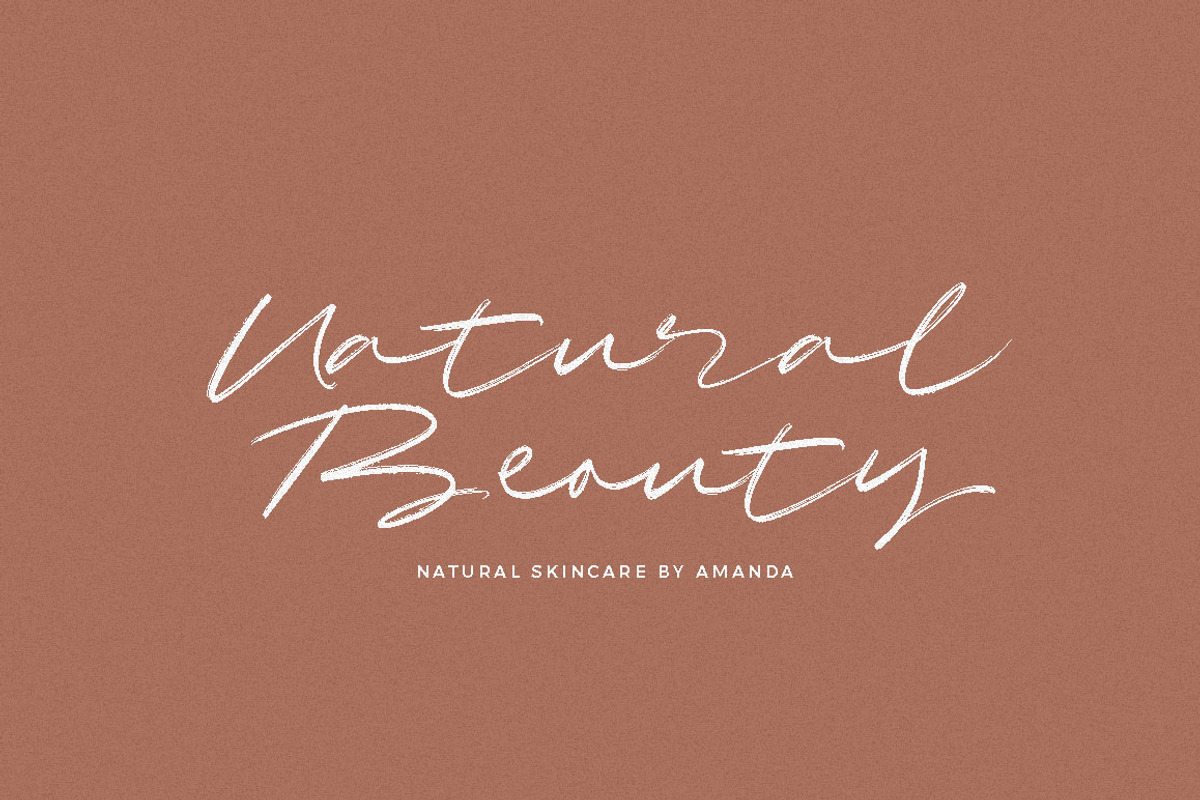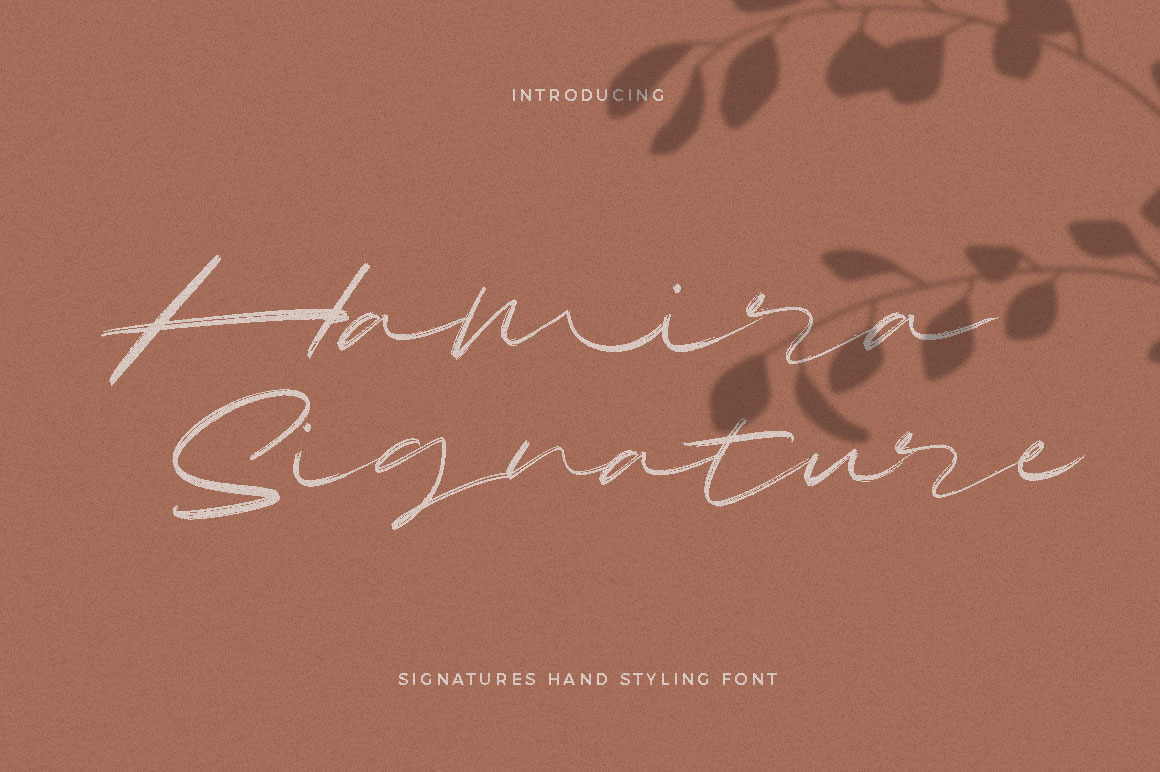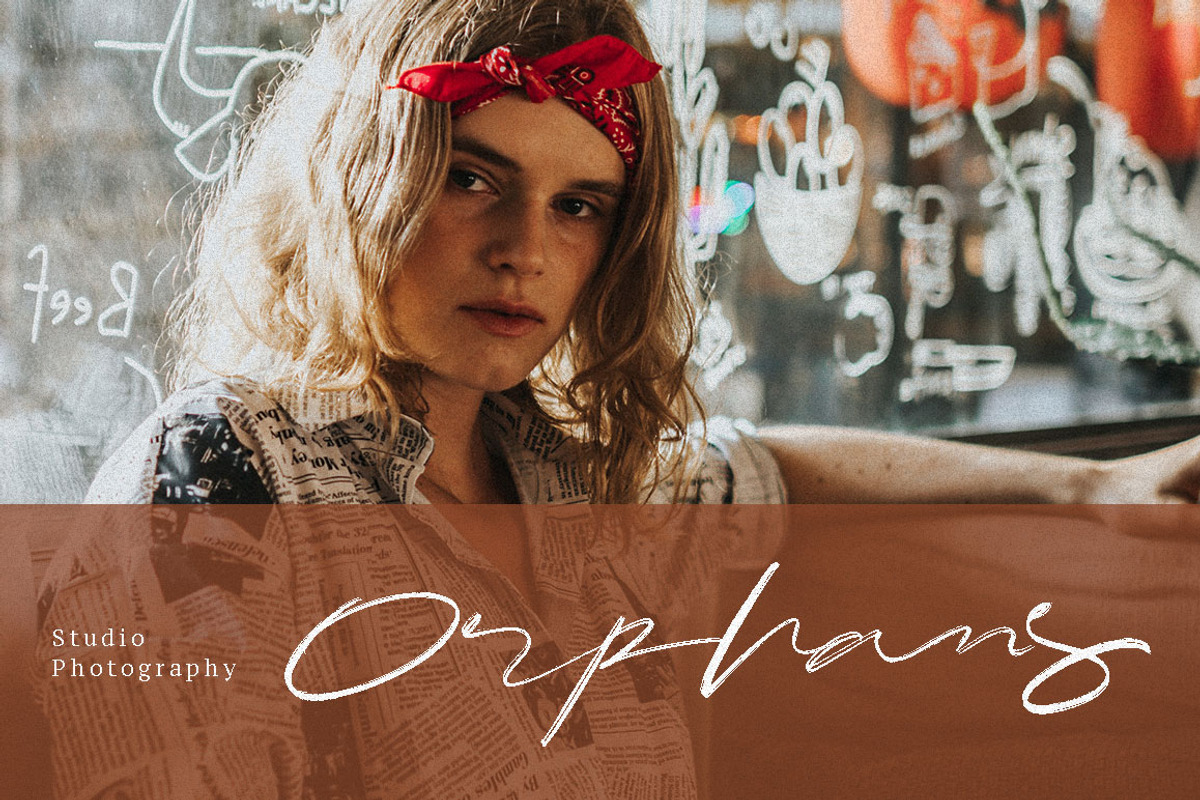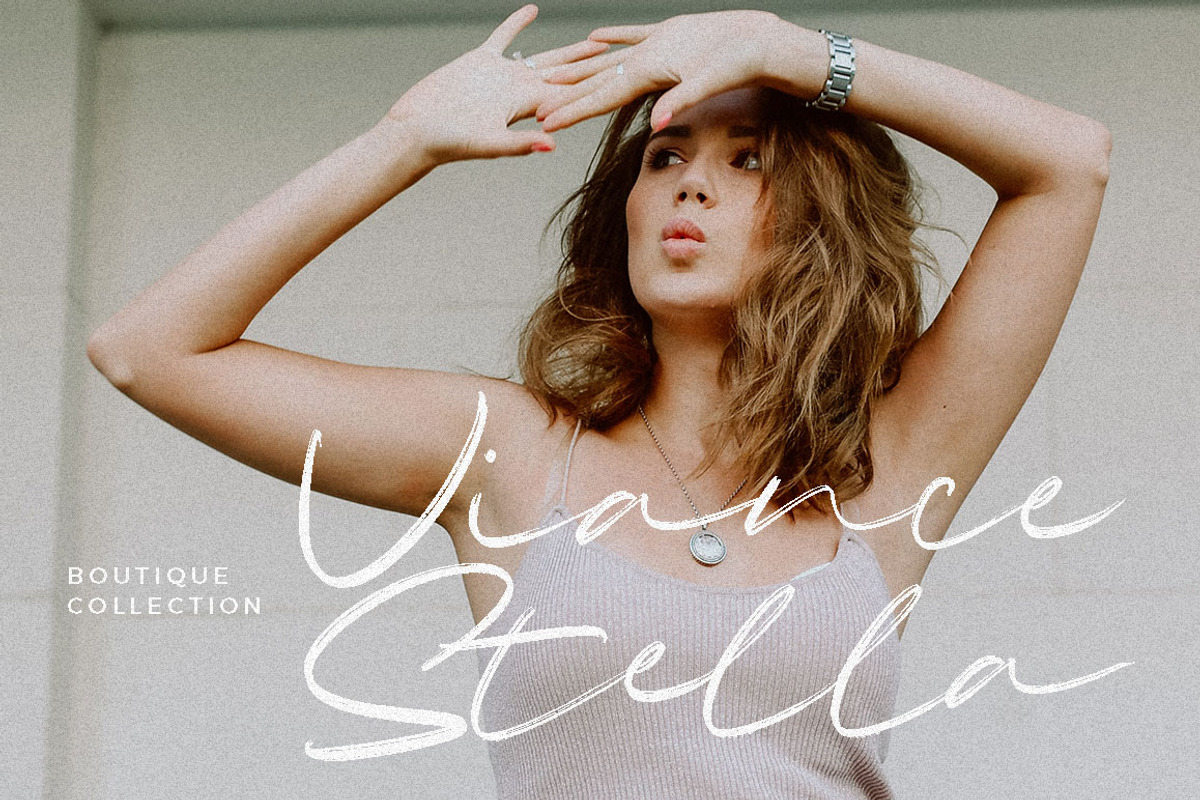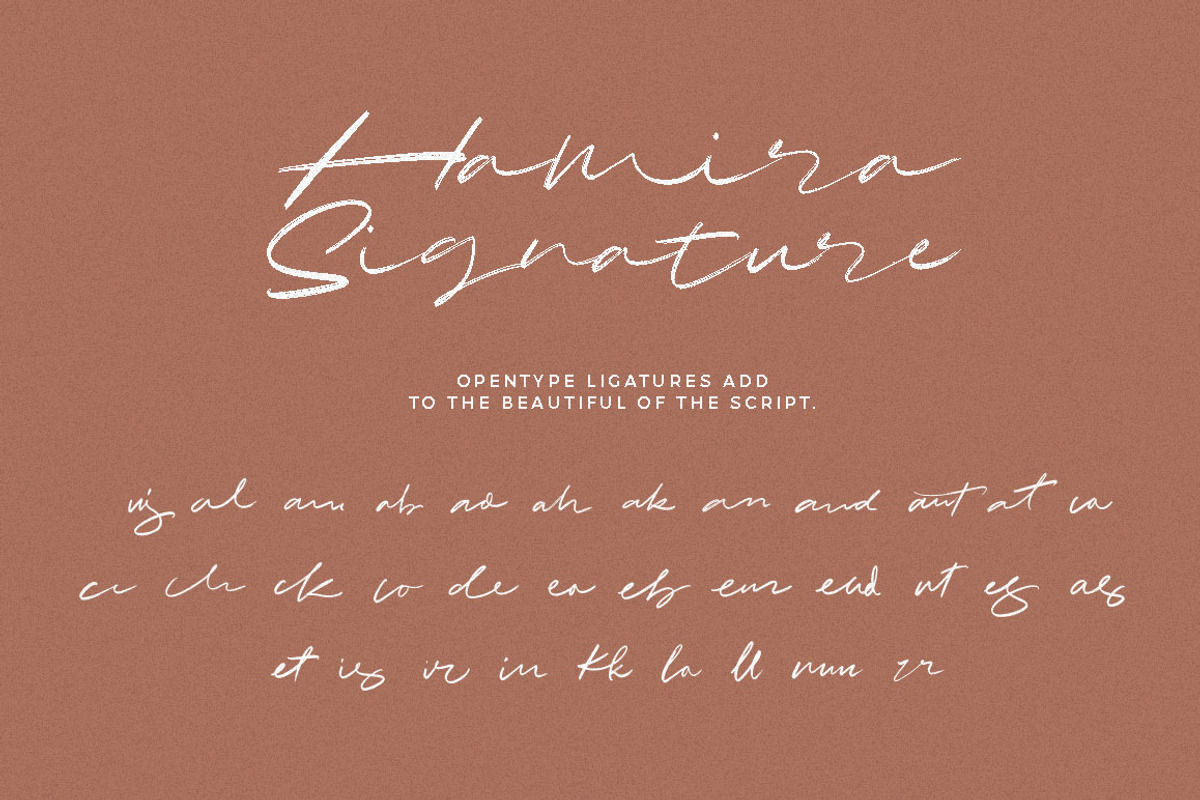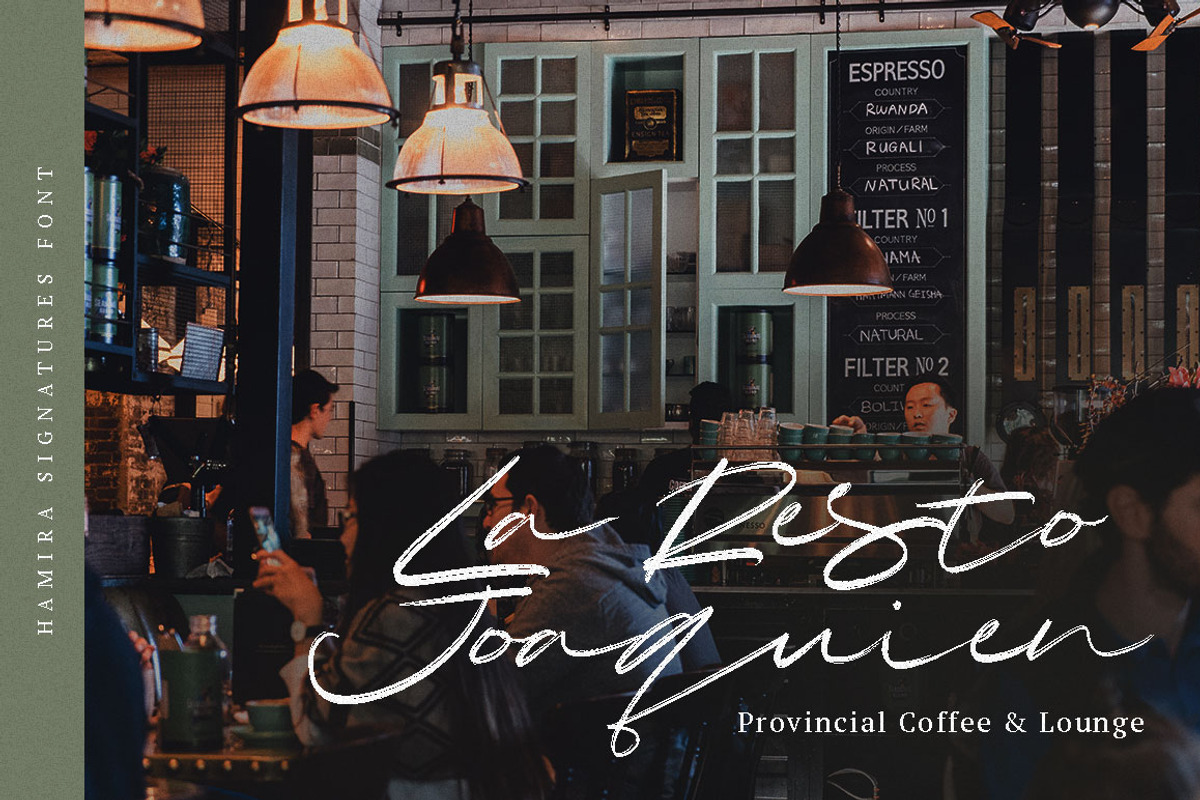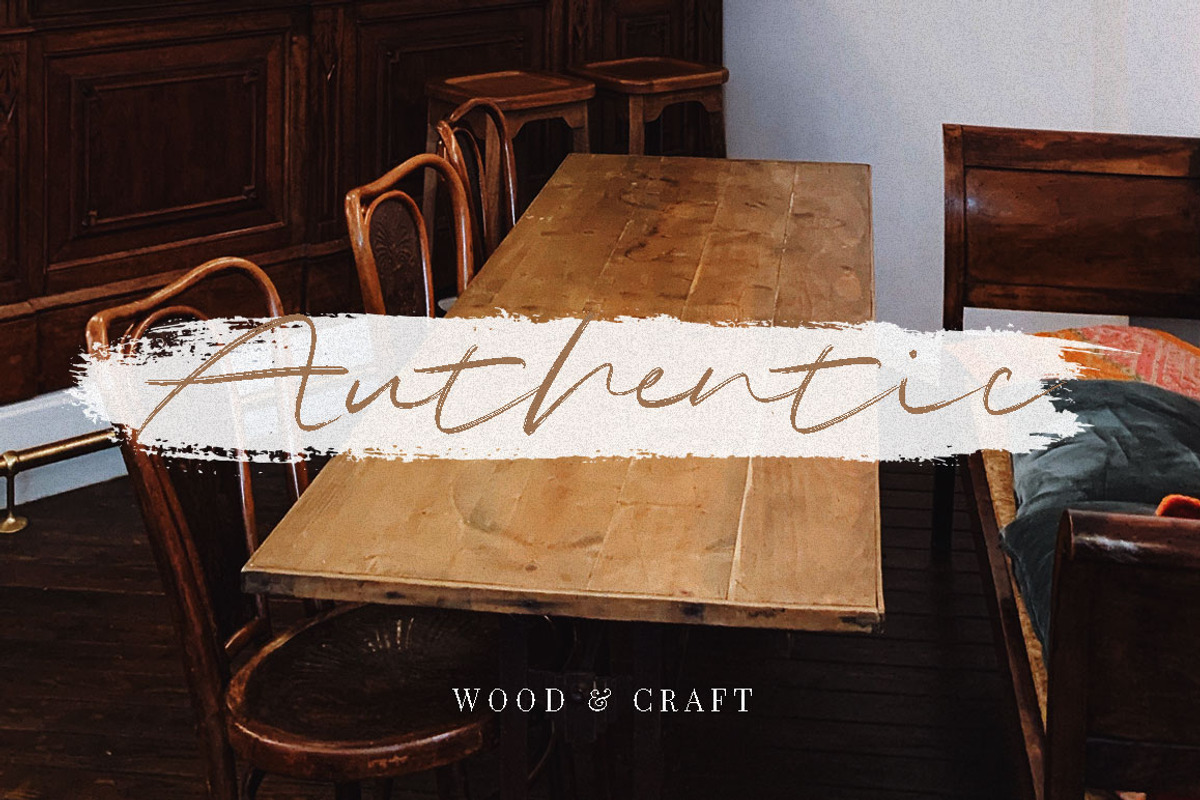
Hamira - Signature Brush Font
Hamira Script is perfect for branding projects, logo, wedding designs, social media posts, advertisements, product packaging, product designs, label, photography, watermark, invitation, stationery and any projects that need handwriting taste.
- Tons of glyphs